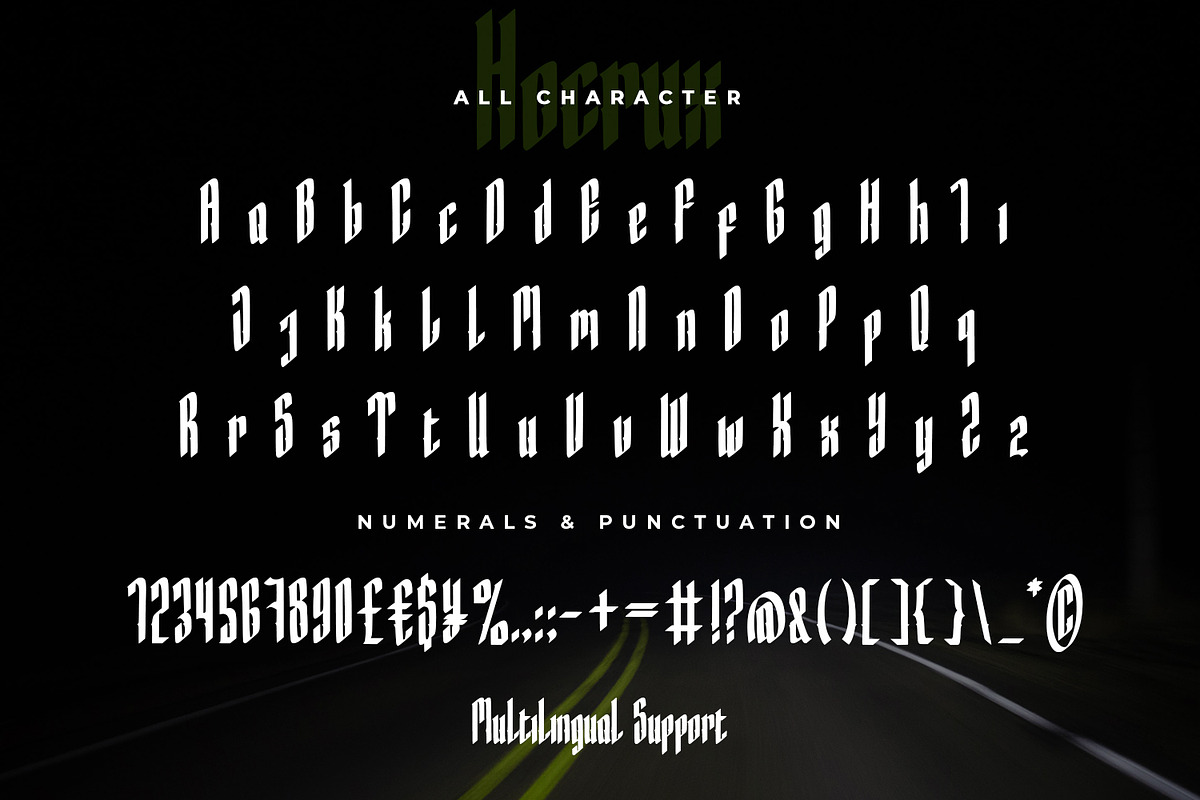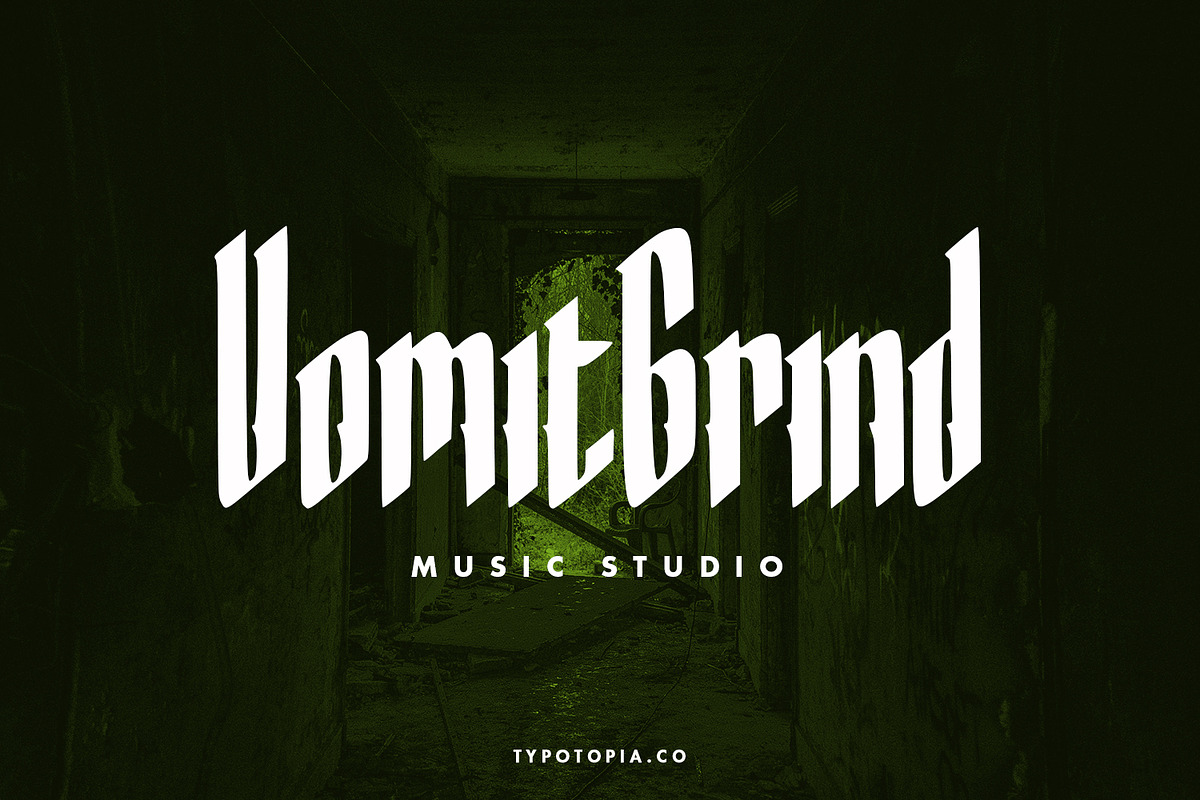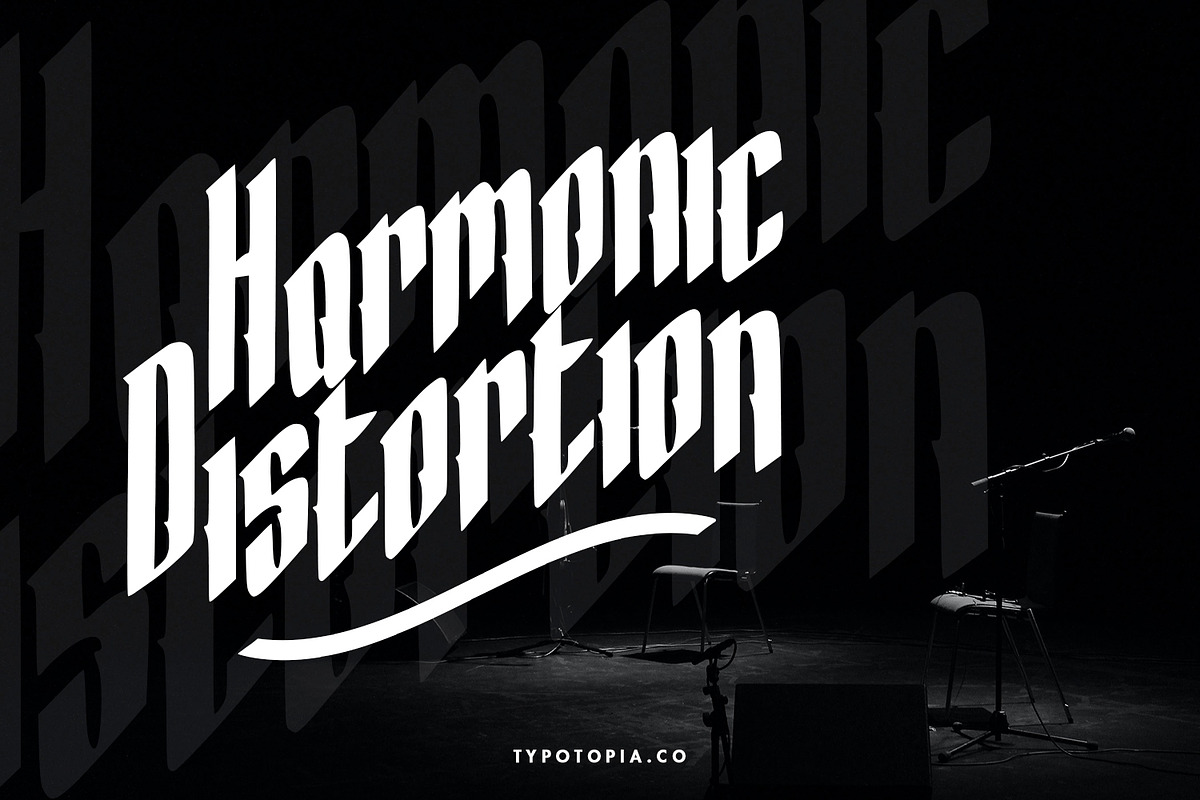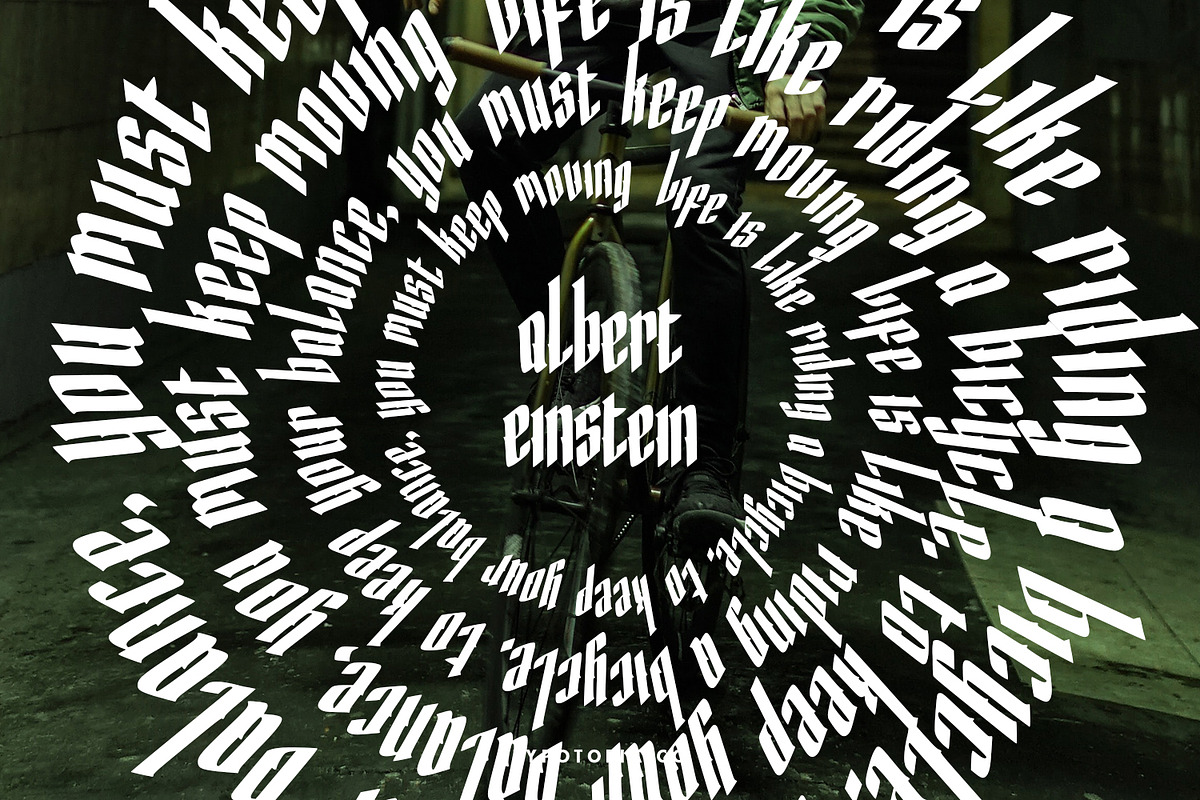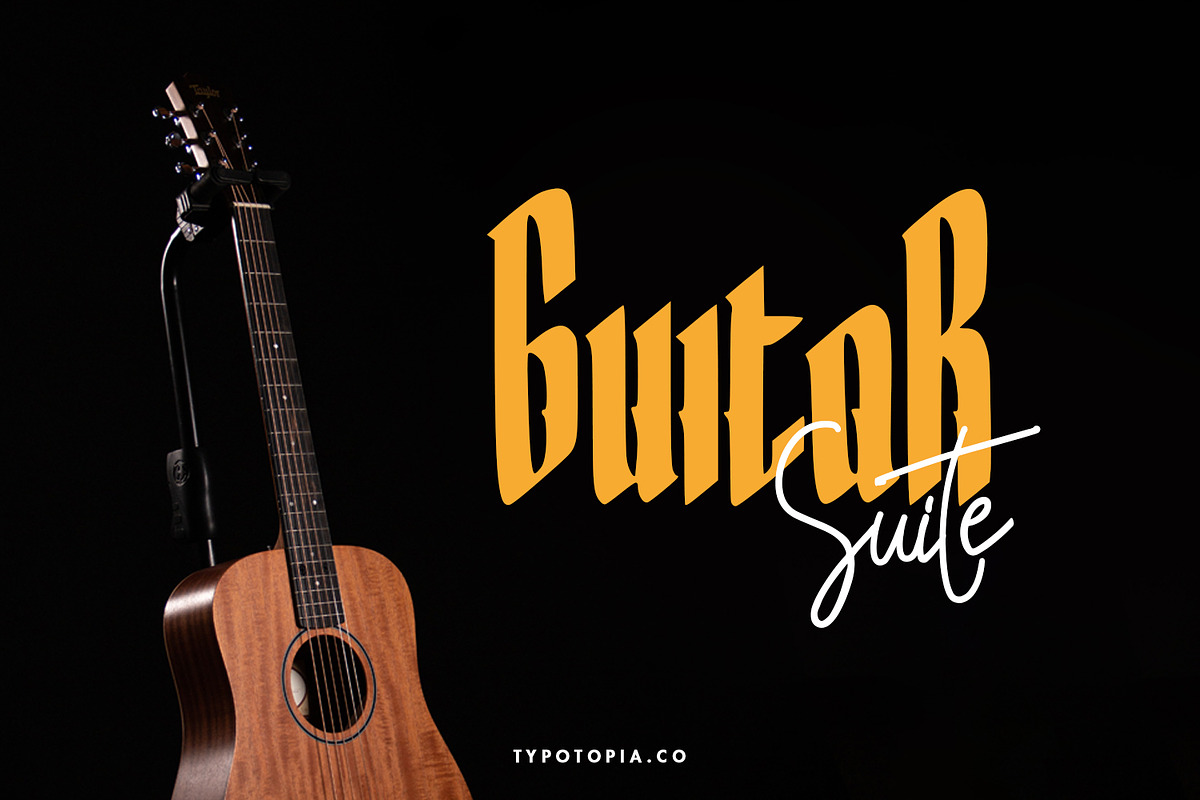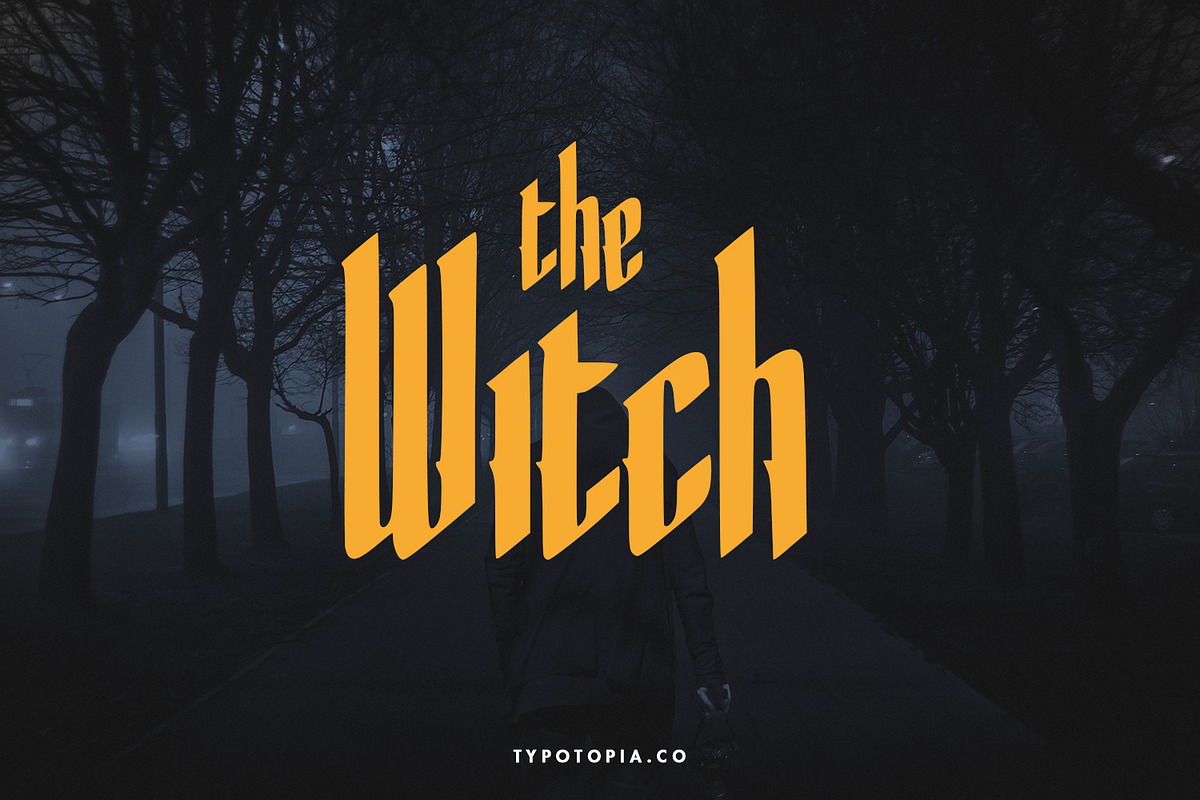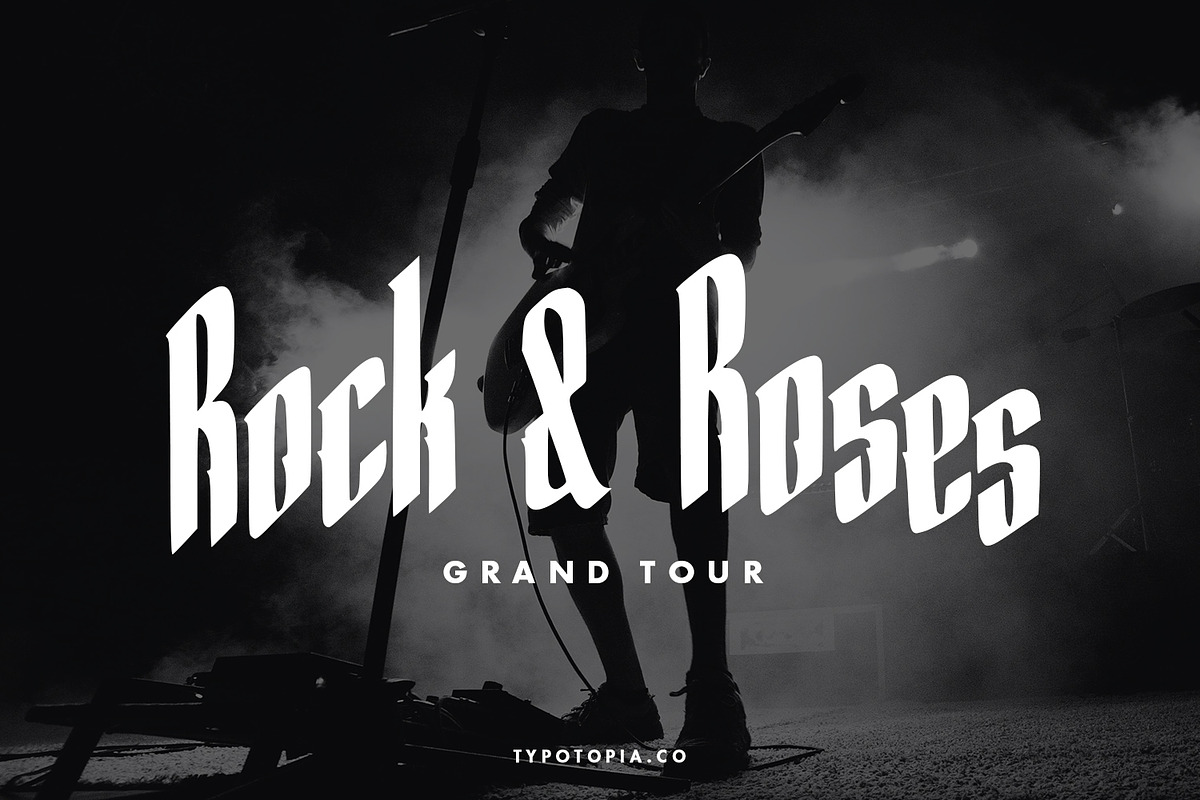
Hocrux Display Font
We're Proudly Introduce to all of you, Hocrux Display Font. This Font is the great choice for several purpose, it suitable for for headline, logotype, apparel, invitation, branding, packaging, advertising etc.
Hocrux also Support Multilingual Feature for Foreign Language, here’s the list :
áäåãéèëìïîòöôøùüAÀÁÂÃÄÅEÈÉÊËIÌÍÎÏNÑOÒÓÔÕÖUÙÜÚÛYÝŸ?Ÿ
What are the main Features on This Fonts :
Uppercase & Lowercase letters
Why Hocrux Display Font is worth a look
Hocrux Display Font by edukka fits naturally into Branding, posters, packaging, typography.